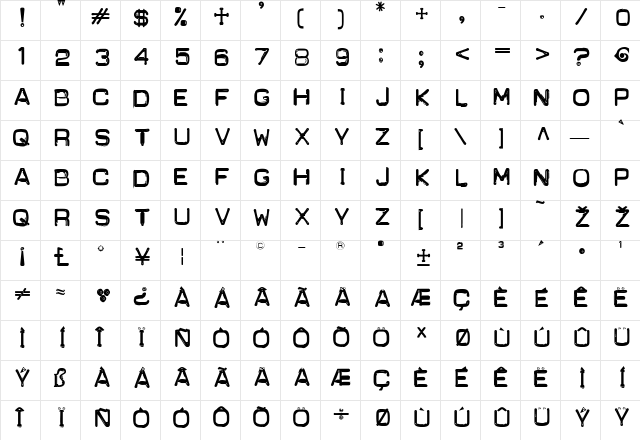
Carbon-14 Stout Regular
Design Context for Carbon-14 Stout Typeface
Carbon-14 Stout takes a measured approach to typography — its balanced proportions and neutral character make it a reliable workhorse for both digital and print work.